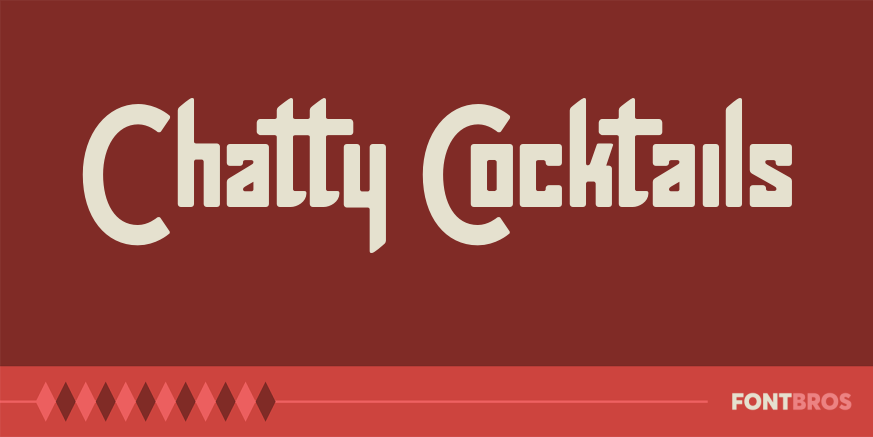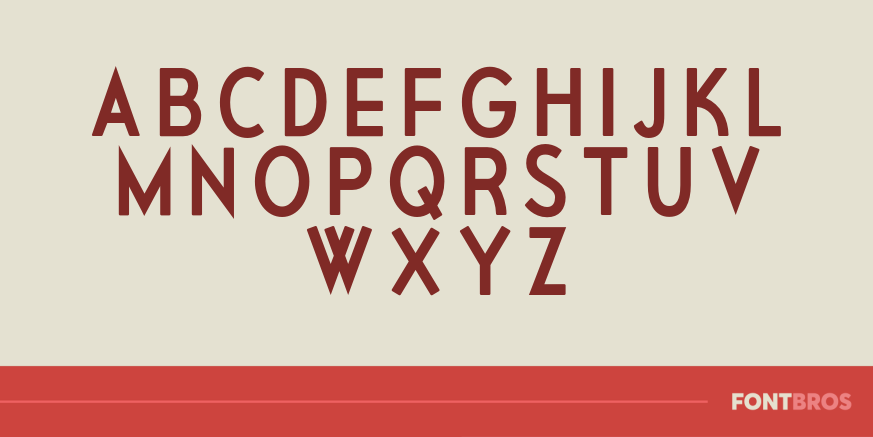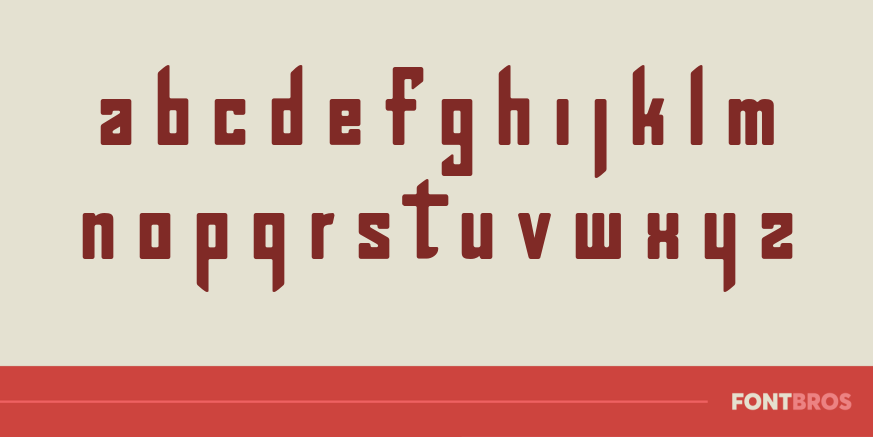
Chatty Cocktails
Font Family by Font Diner
Smooth like a dry gin martini without the headache it's Chatty Cocktails, the fine 1940s style Art Deco script.